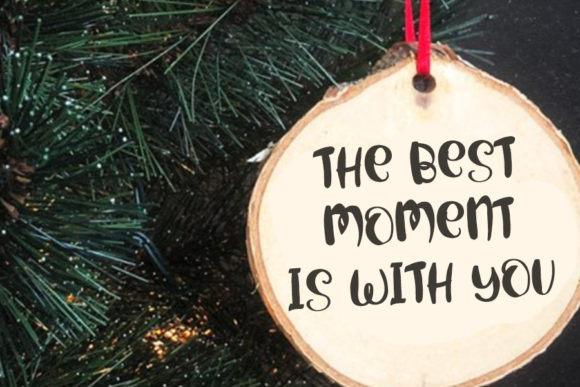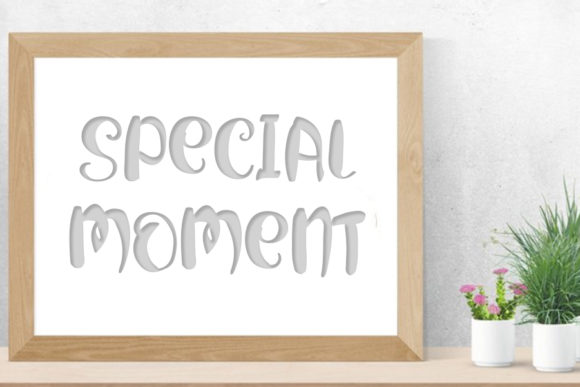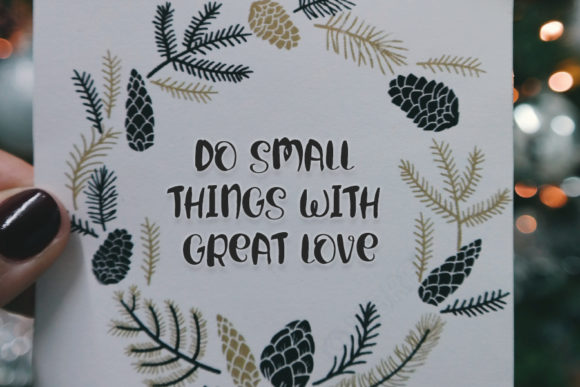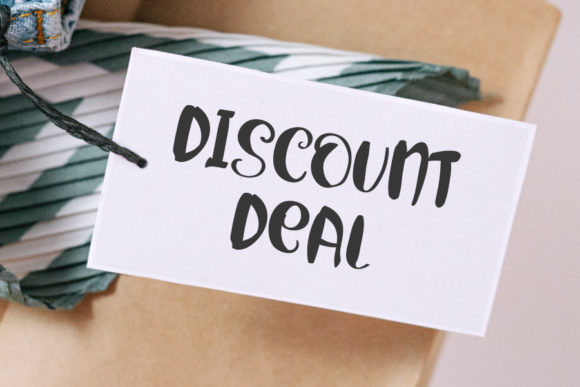
The Perfect Font for Unforgettable Designs
Who hasn’t experienced that moment of pure creative bliss when a new font suddenly sparks an idea? For me, it was the moment I stumbled upon the Best Friends Font. Its playful, rounded letters instantly captured my heart and imagination. The joy it radiates is infectious, making it the perfect companion for any creative project.
Best Friends is a display font that embodies a charming, down-to-earth spirit. Its versatility makes it suitable for a wide range of designs, from whimsical illustrations to elegant typography. Whether you’re a seasoned designer or just starting out, this font is sure to become your new best friend – a trusted companion that will elevate your designs and make them truly unforgettable.
Best Friends Font Key Features
- Font Family: A custom-designed script font, ideal for creating a friendly and approachable atmosphere.
- Unique Characteristics: Features a mix of rounded and cursive elements, creating a playful yet elegant aesthetic.
Designer Review: Best Friends Font
Overall, I was excited to dive into the Best Friends Font, hoping it would be a charming and playful addition to any design project. Here’s my honest take:
- The font’s whimsical feel is sure to bring a smile to anyone’s face. Its cursive script and rounded edges make it perfect for creating a friendly, approachable atmosphere.
- The Best Friends Font offers a range of weights and styles, allowing designers to customize the look to suit their project’s needs.
- The font is highly legible, even at smaller font sizes, making it a great choice for body text or captions.
- The font’s design may not be suitable for formal or professional projects, as it can come across as too casual or childish.
- The Best Friends Font may not be as versatile as other fonts, as its playful nature can be limiting in certain design contexts.
- The font’s OpenType features, such as ligatures and swashes, may not be supported in all design applications.
In conclusion, the Best Friends Font is a delightful addition to any design project that calls for a playful, approachable vibe. While it may have some limitations, its charms make it a great choice for designers looking to add a touch of whimsy to their work.
Tips for Getting the Most Out of Best Friends Font
Here are some tips to get the most out of Best Friends Font:
- Use it for titles and headings to add a playful touch to your design.
- Pair it with bold or italic fonts to create a visually appealing contrast.
- Use it for social media graphics and promotional materials to add a friendly and approachable tone.
Best Friends Font is ideal for:
- Social media graphics and promotional materials.
- Wedding invitations and party decorations.
- Children’s book illustrations and educational materials.
Alternatives to Best Friends Font for Designers
Great Vibes is a modern script font ideal for creating a friendly and approachable atmosphere. It’s perfect for headings, quotes, and titles in magazines, advertisements, and social media graphics.
Compared to Best Friends Font, Great Vibes has a more elegant and refined feel, making it suitable for a wider range of design projects.
Pacifico is a beautiful, elegant script font that works well for creating a sophisticated and modern look. It’s ideal for headings, titles, and body text in web design, magazines, and advertising materials.
Pacifico has a more relaxed and casual feel compared to Best Friends Font, making it suitable for a variety of design projects, from fashion to food and beverage branding.